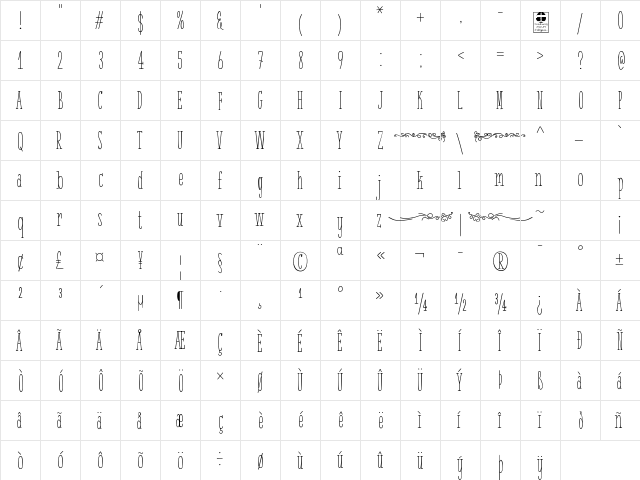
{ White Festive } Regular
| Foundry | StudioTypo |
| Designer | MEHMET ABACI |
Design Context for { White Festive } Typeface
{ White Festive } is a composed and adaptable typeface that performs quietly and consistently across a wide range of design contexts.